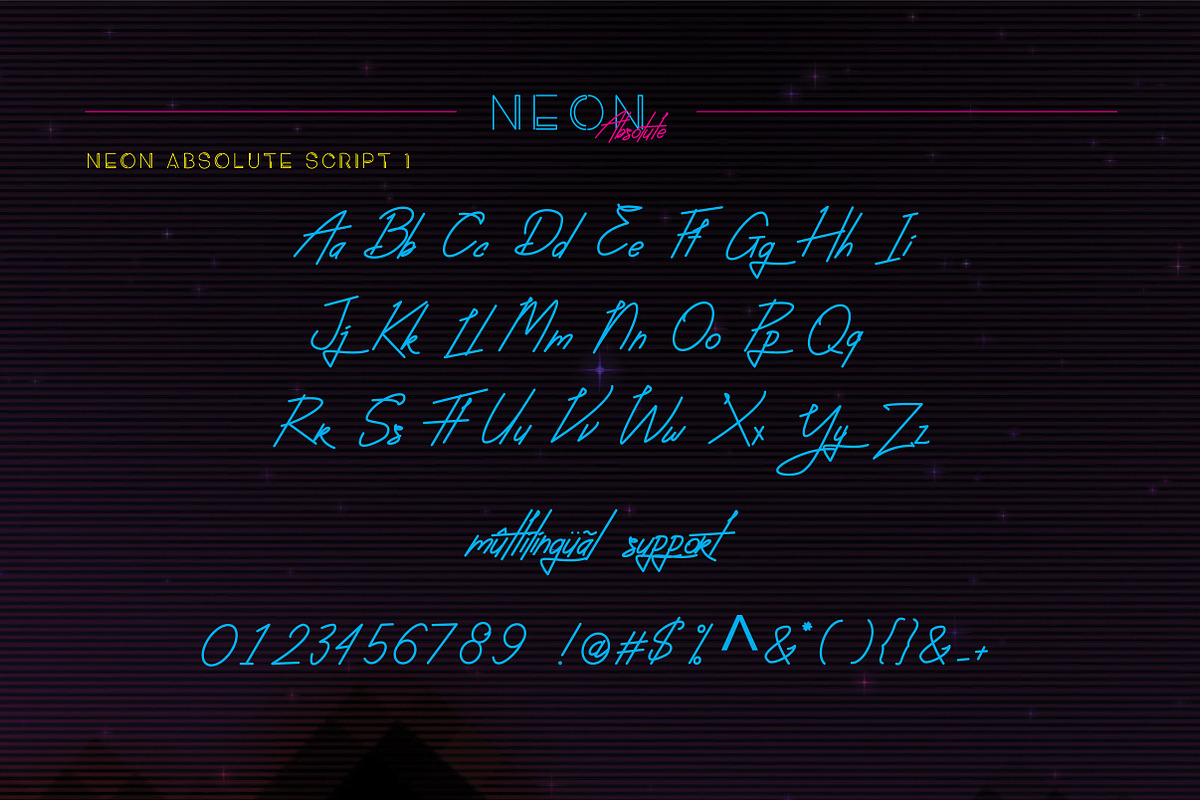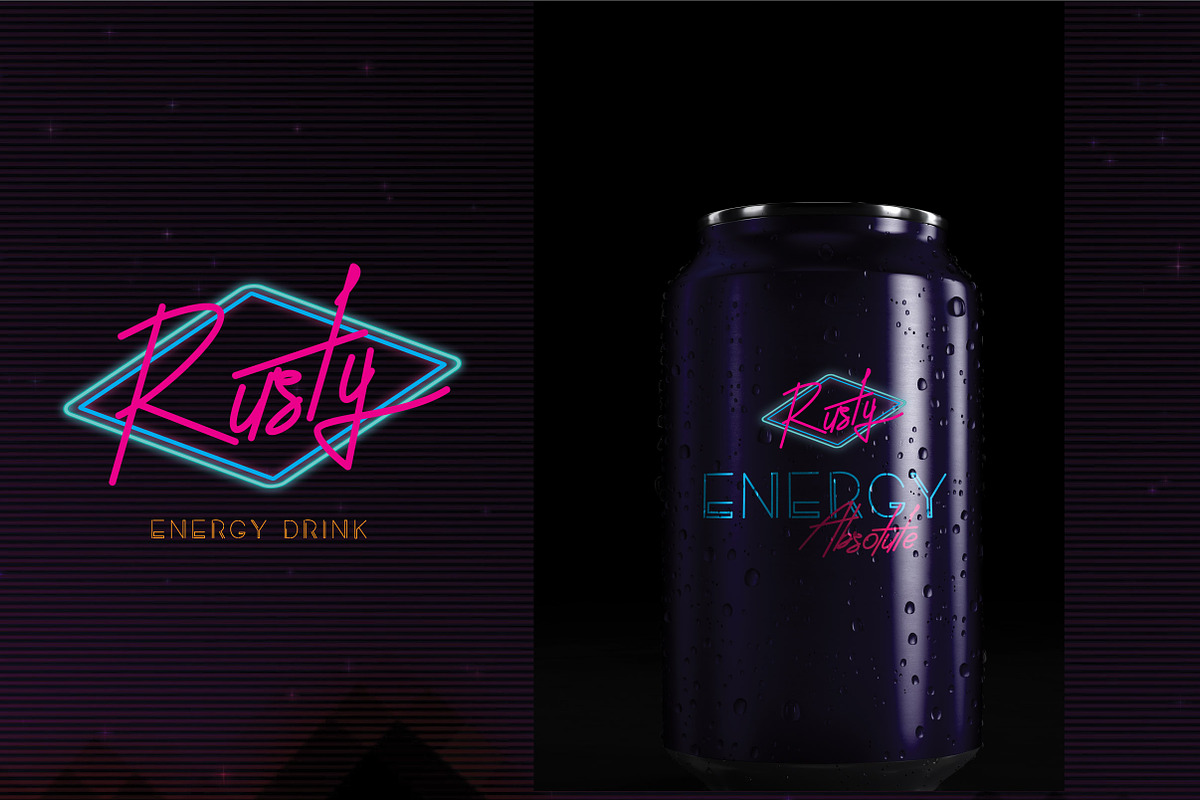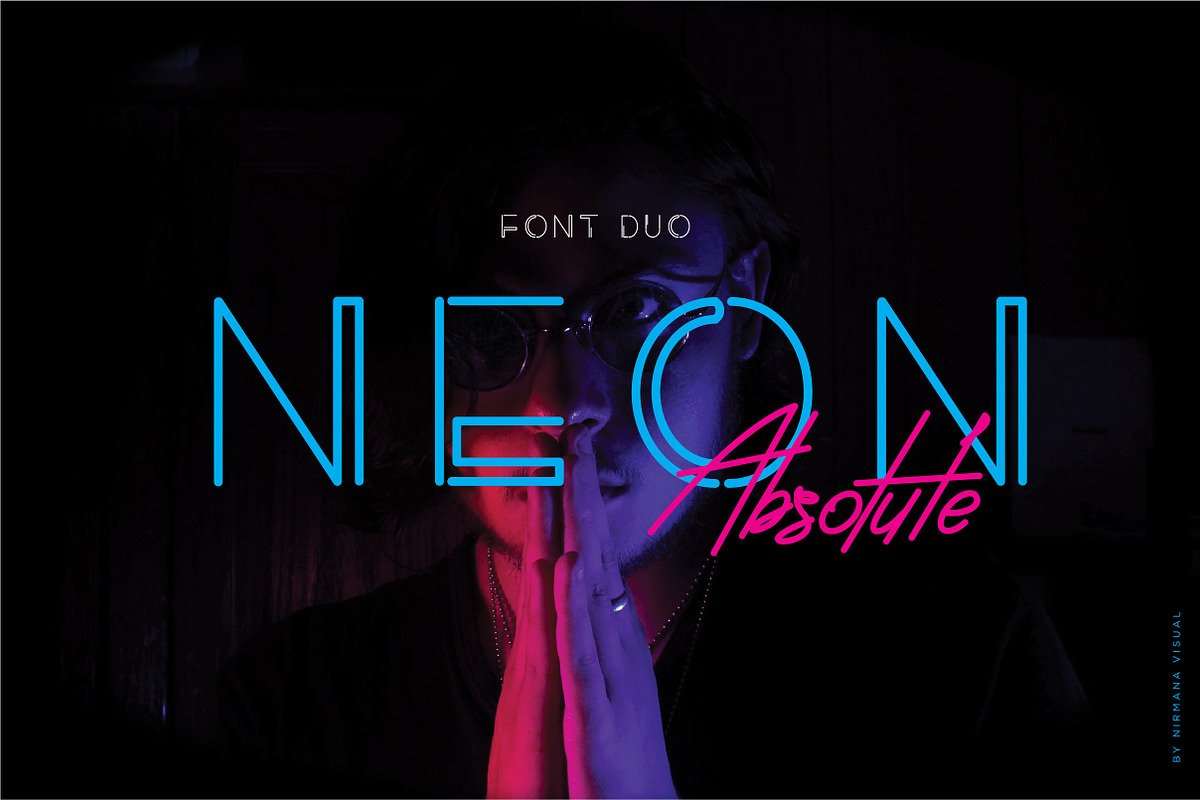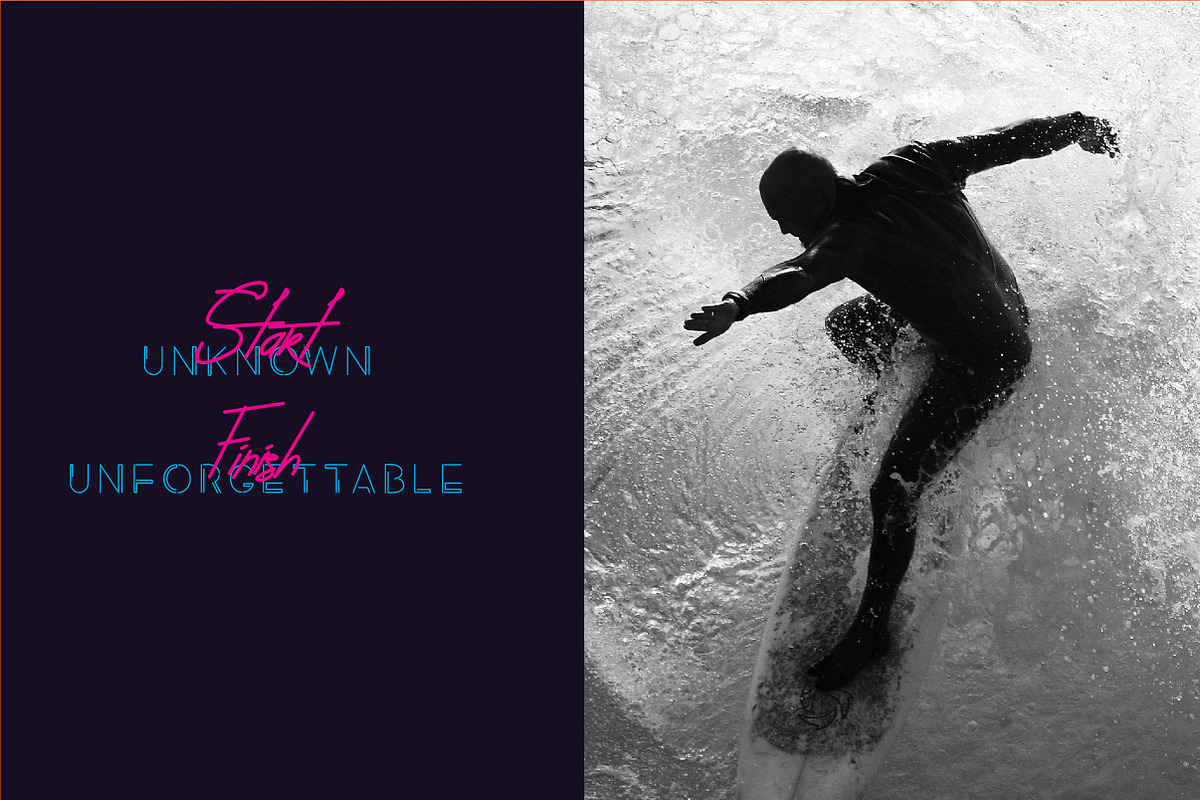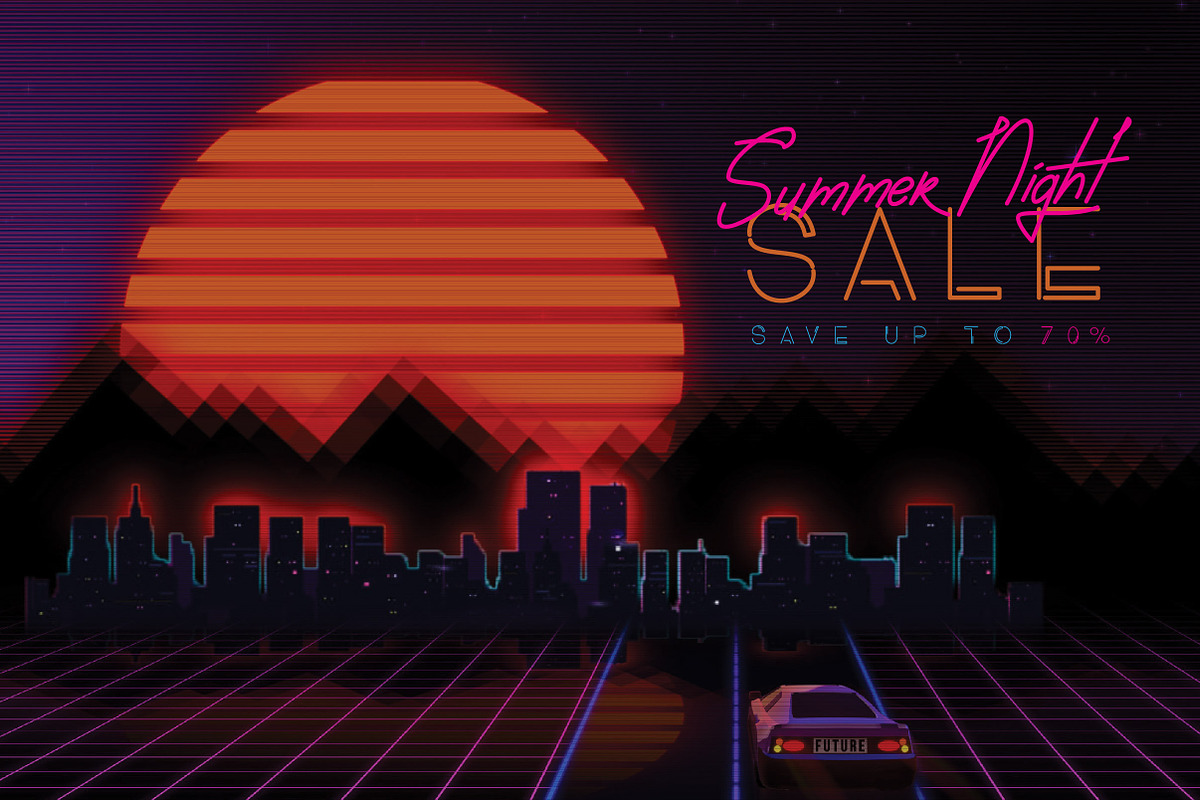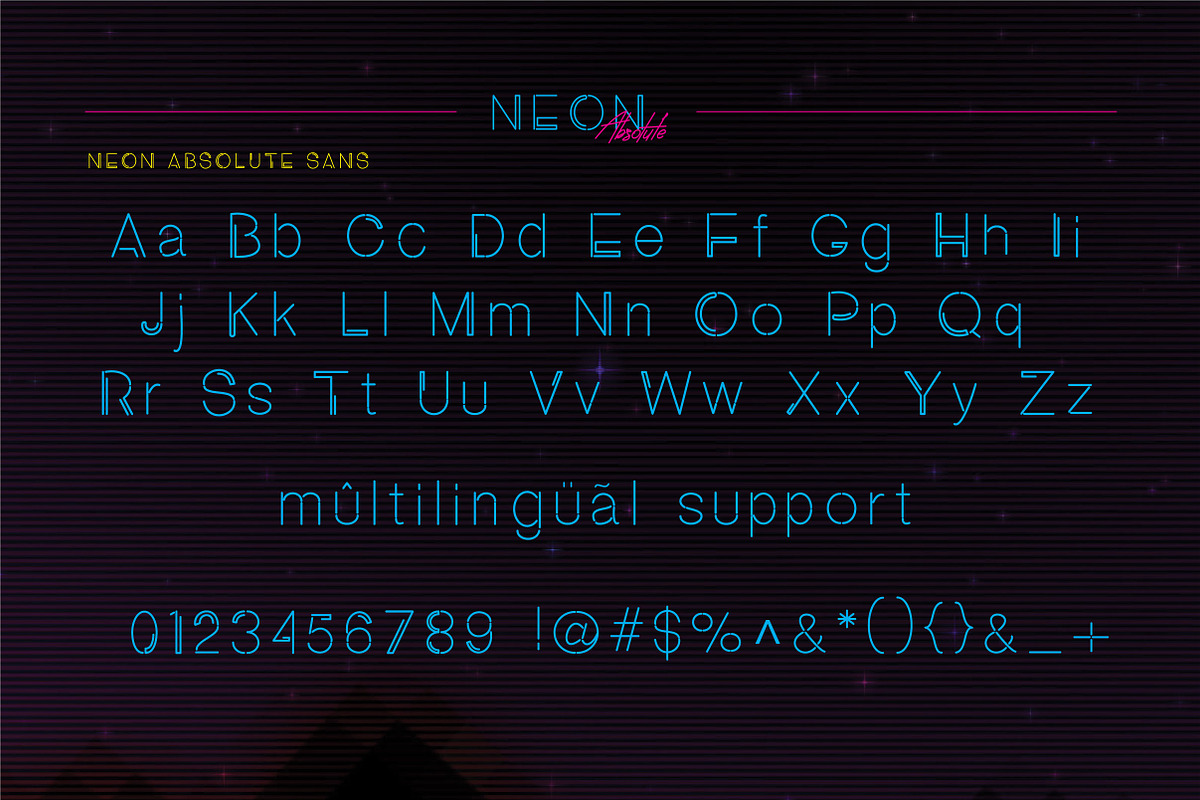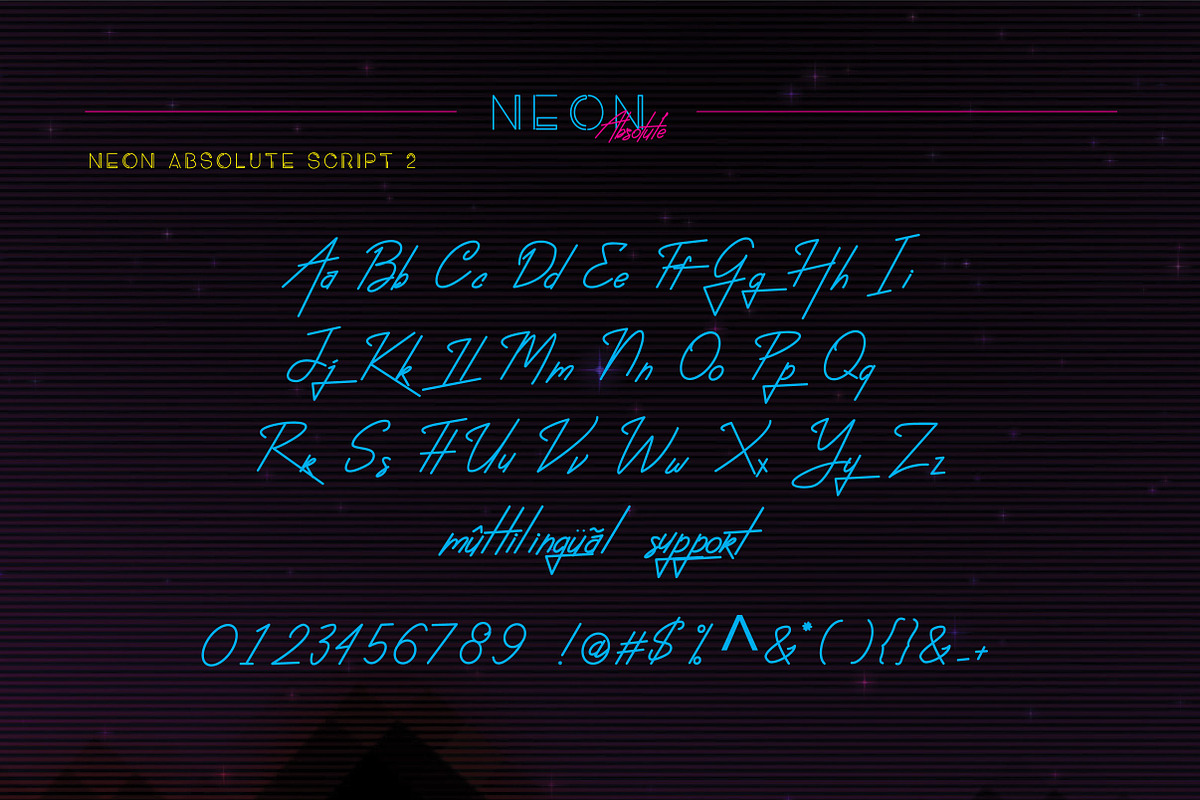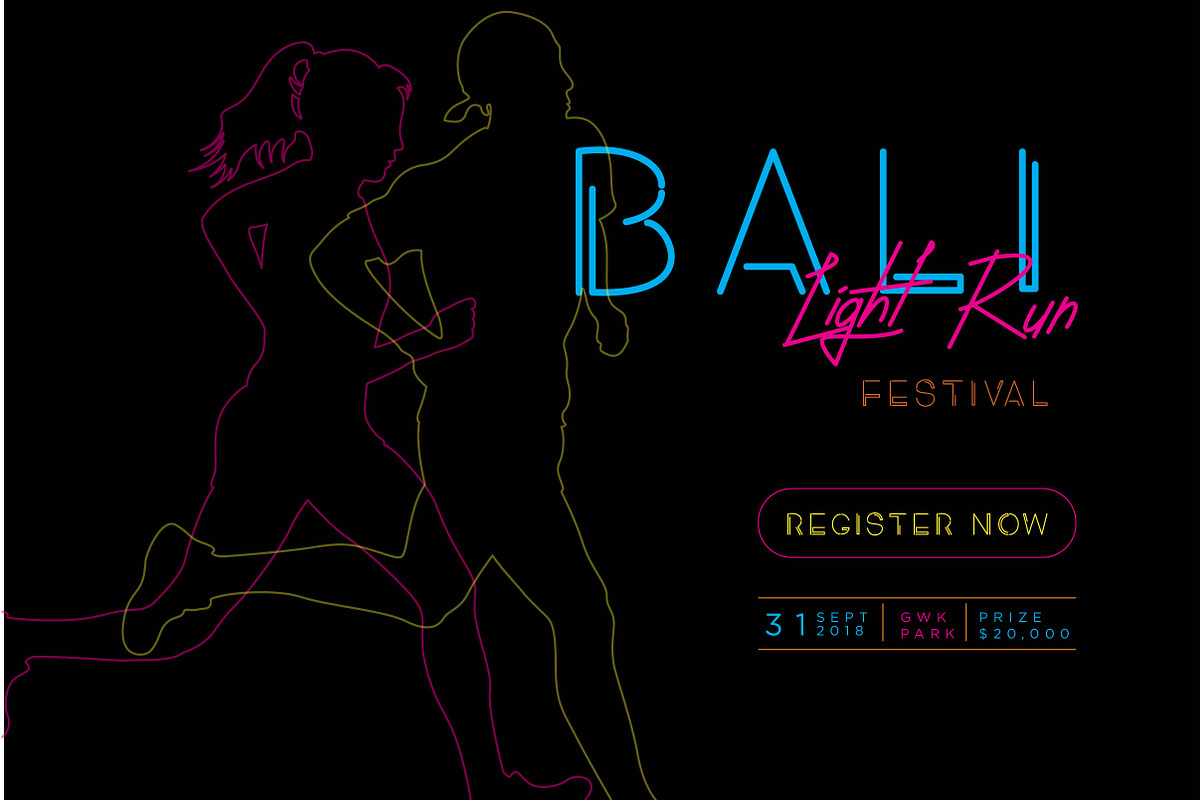
Neon Absolute - Font Duo
Neon Absolute ! a classy, contemporary pair of script and sans fonts, inspired by 1980’s and neon lights.
Neon Absolute offers beautiful typographic harmony for a diversity of design projects, including logos & branding, social media posts, advertisements & product designs.
The perfect font choice for powerful projects - watermarks, signatures, photography, logos, business cards, quotes, album covers.
Multilingual support - spread your message globallyAÀÁÂÃÄÅCÇDÐEÈÉÊËIÌÍÎÏNÑOØÒÓÔÕÖUÙÜÚÛWYÝŸỲŸÆŒßÞþ